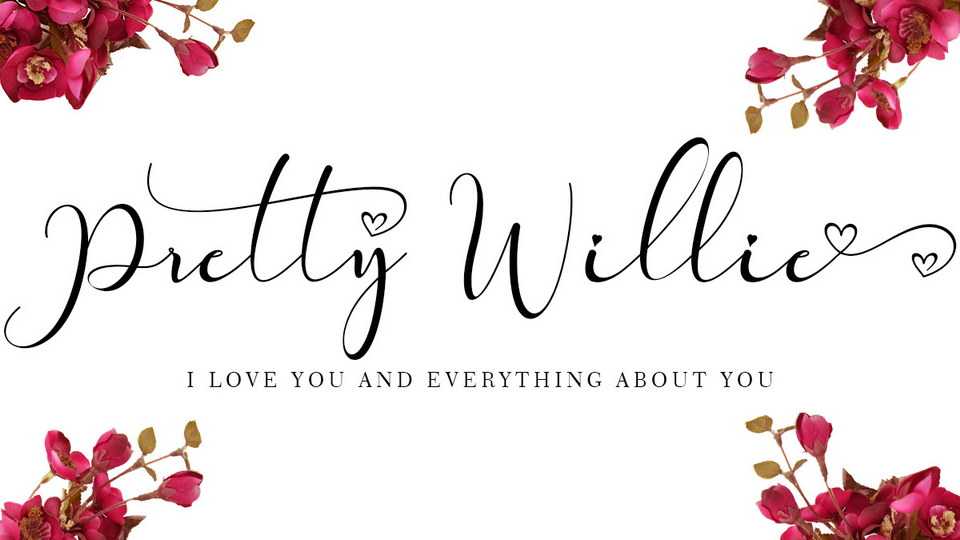
Download Pretty Willie font, a very beautiful, elegant and romantic typeface. Pretty Willie is a modern calligraphy script that is perfect for beautifying your work.